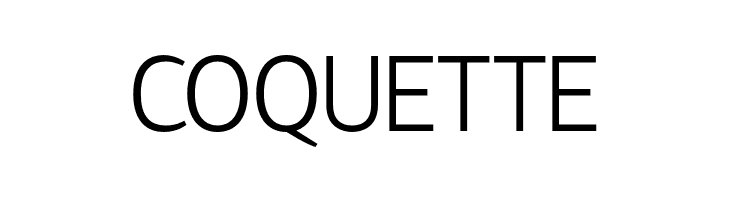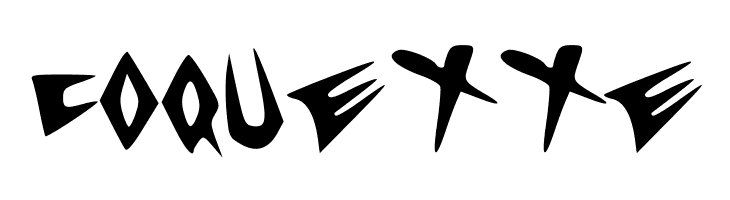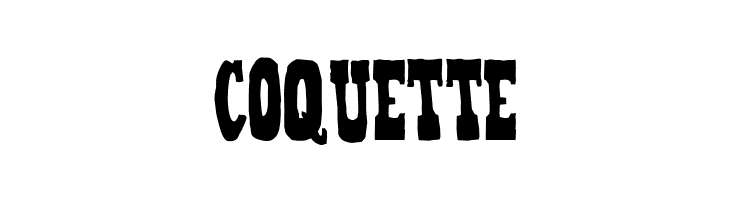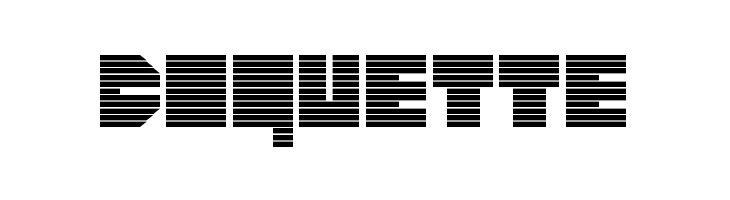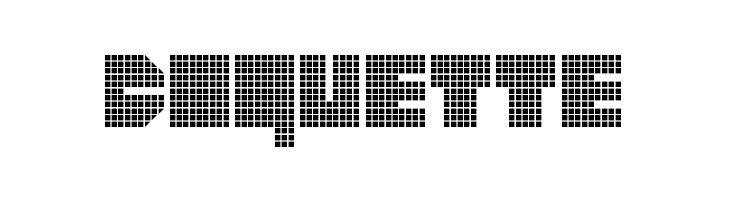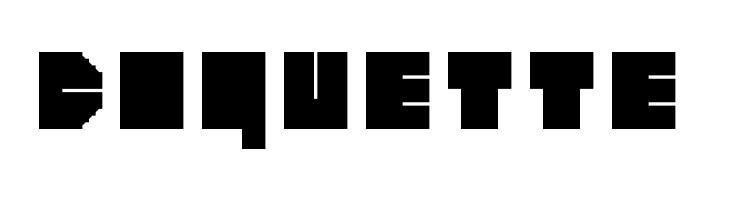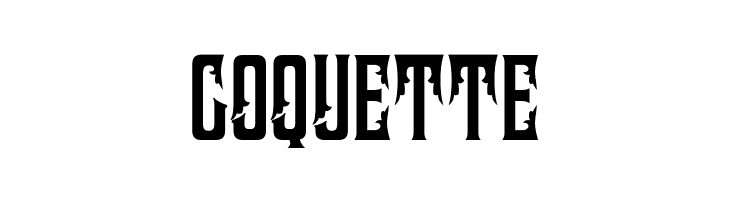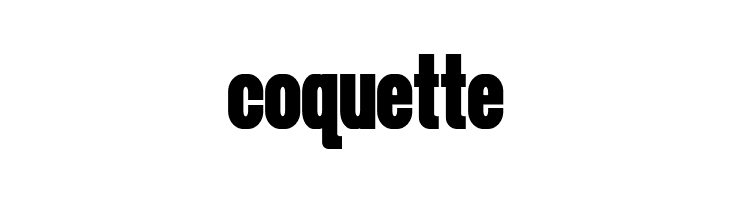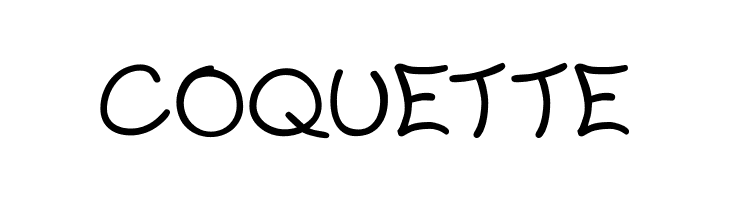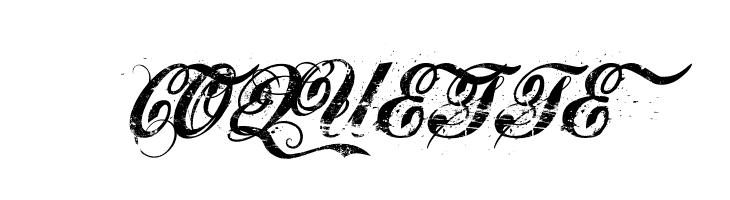
A thin, modern sans-serif font with geometric precision and elegant simplicity.
A thin, modern sans-serif font with clean lines and balanced proportions.
A sleek, thin, and italic font with a modern and elegant design.
A bold, decorative font with intricate, curvaceous letterforms and a strong visual presence.
A modern, rounded font with excellent readability and a friendly appearance.
A bold, rounded font with a playful and friendly style.
An elegant italic font with smooth curves and a sophisticated style.
A modern, light sans-serif font with a clean and balanced design.
A modern, light sans-serif font with excellent readability and low contrast.
A sleek, modern, light italic font with medium contrast and smooth strokes.
A spooky, jagged font ideal for Halloween or eerie themes.
A spooky, decorative font with jagged edges and eerie cutouts, perfect for Halloween themes.
A bold, shadowed font with jagged edges, perfect for spooky themes.
A bold, shadowed font with gothic and spooky elements, perfect for Halloween themes.
A bold, modern sans-serif font with uniform weight and clear readability.
A decorative script font with floral embellishments and a distressed texture.
Portrait-based dingbat font with stylized black-and-white faces.
A bold, edgy font with sharp, angular design and tribal-like embellishments.
A bold, modern font with a unique gradient effect and a futuristic style.
A modern, futuristic font with elongated, narrow characters and a unique gradient effect.
A futuristic, geometric font with bold lines and unique character shapes.
A bold, decorative font with heart motifs integrated into each character.
A heart-themed decorative font with glyphs made from clustered heart shapes.
A bold, decorative font with heart motifs, perfect for romantic and playful designs.
A playful font composed of heart-shaped patterns, perfect for romantic and whimsical designs.
A playful, handwritten font with irregular strokes and a casual, artistic style.